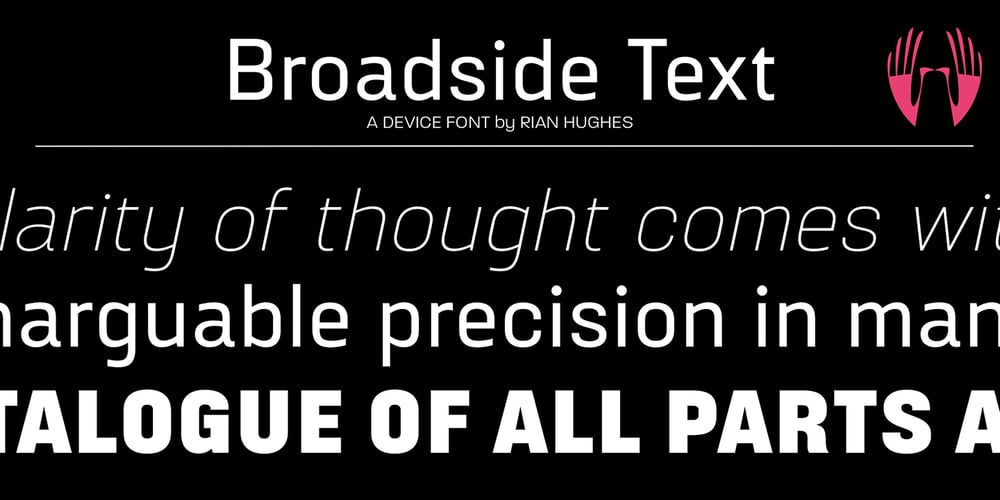
Broadside Text
Broadside Text font
Broadside Text Font Family was designed by Rian Hughes and published by Device. Broadside Text contains 14 styles and family package options. Broadside Text is a companion to Broadside, and is optimised for use at smaller sizes. More open counters, more generous letter-spacing and additional fractions increase legibility. The original Broadside family is suitable for headlines and larger sizes, and also comes with condensed and extended versions.Broadside is a versatile, authoritative and functional family inspired by the sans serifs seen on ’40s and ’50s patriotic posters and period advertising. It is available in seven weights across condensed, normal and extended widths, each with reweighed italics.The type from this period was very often hand-drawn, and so differs considerably from poster to poster. Many American examples of this period use a Photo-Lettering style called Murray Hill and its derivatives, although their UK counterparts, designed by such luminaries as Abram Games or Tom Eckersley, are more stylistically diverse. Even though no single model is available to base a digitisation on, there are certain recurring stylistic quirks that give the type its unique flavour, and so the most interesting examples from several sources were be combined for the final family.Alternate short descenders, allowing for tighter line spacing, can be toggled on or off in the Opentype panel of Indesign or Illustrator.Tabular and lining numerals and a single-story ‘a’ are also available in all weights and styles.